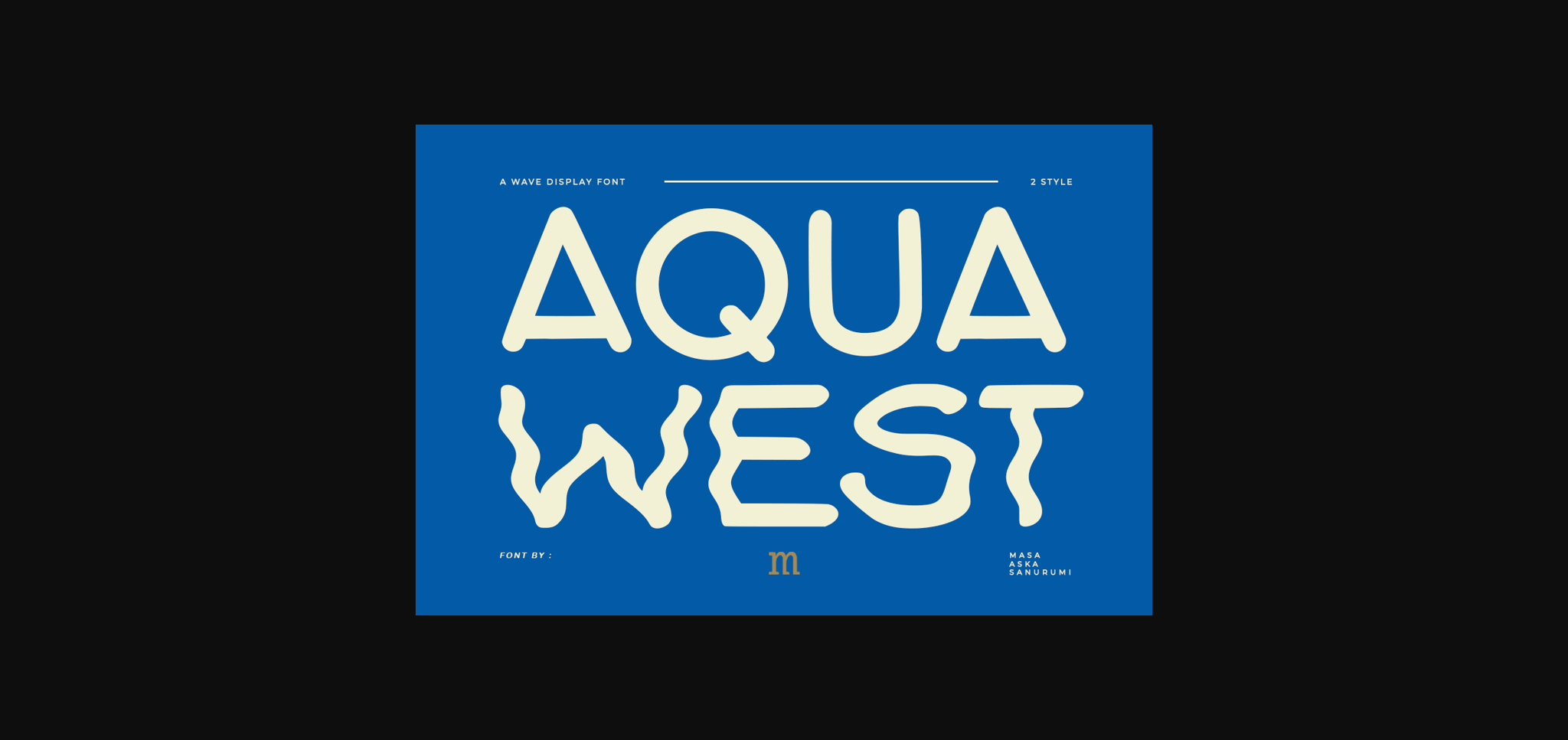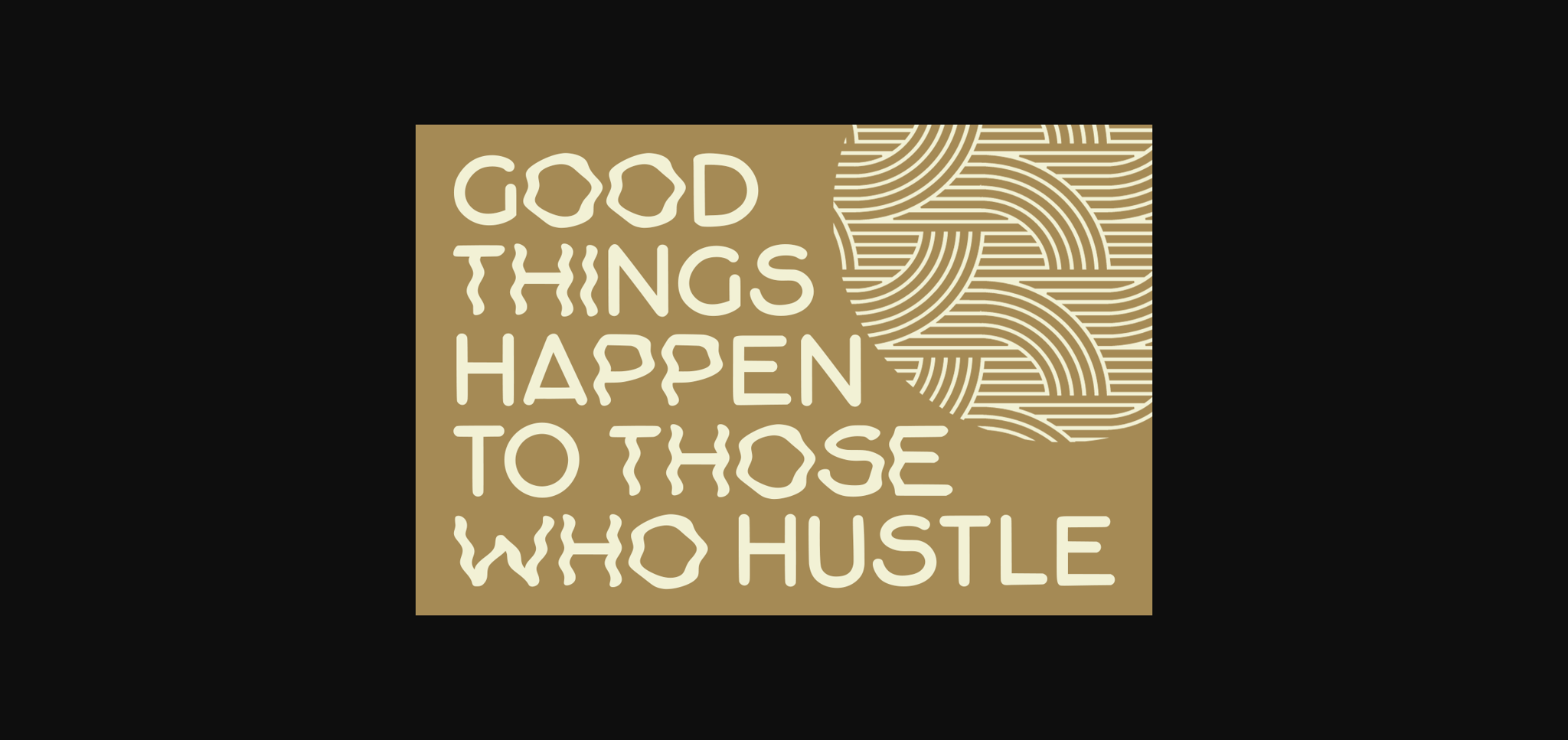
Aqua West Font
About Aqua West Font
Aqua West is a versatile, stylish, and playful sans serif font, perfect for a wide spectrum of applications such as greeting cards, headlines, and many more! Add it to any of your creative projects, and it will give them a clean and exquisite feel.